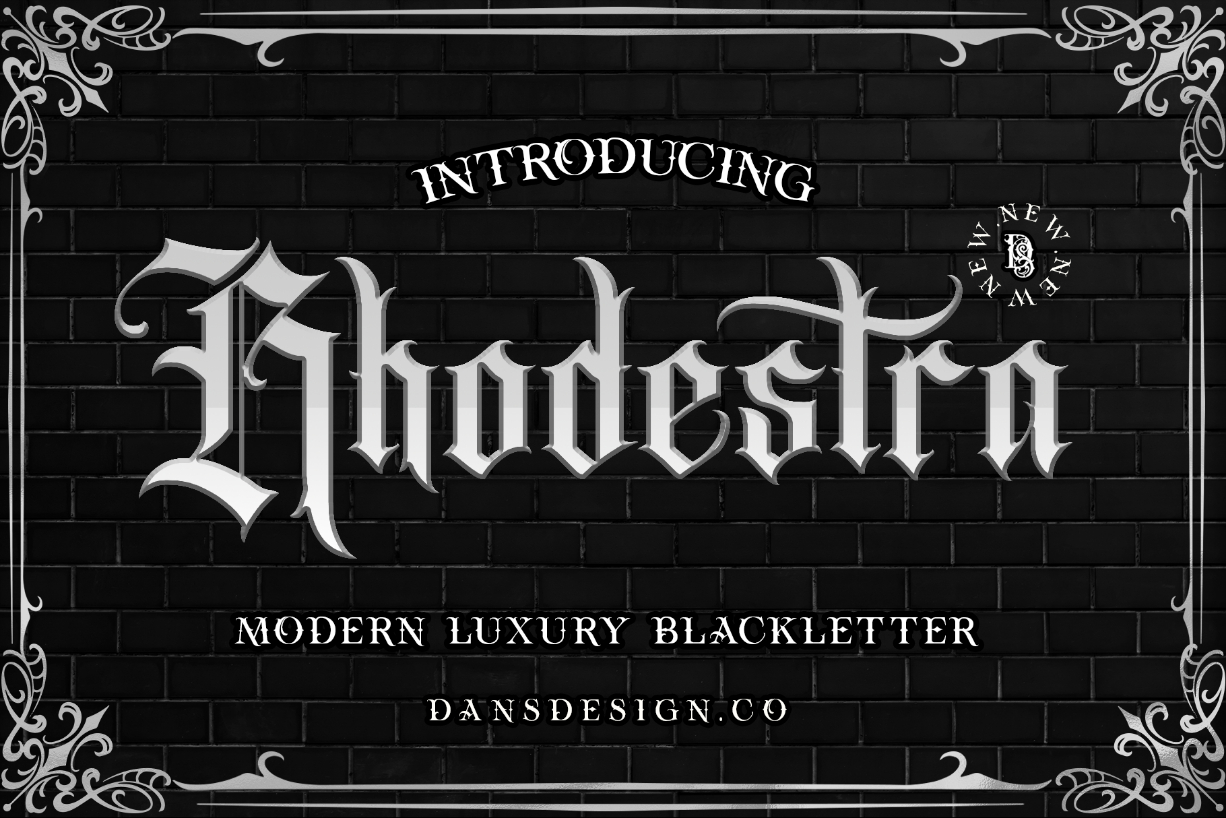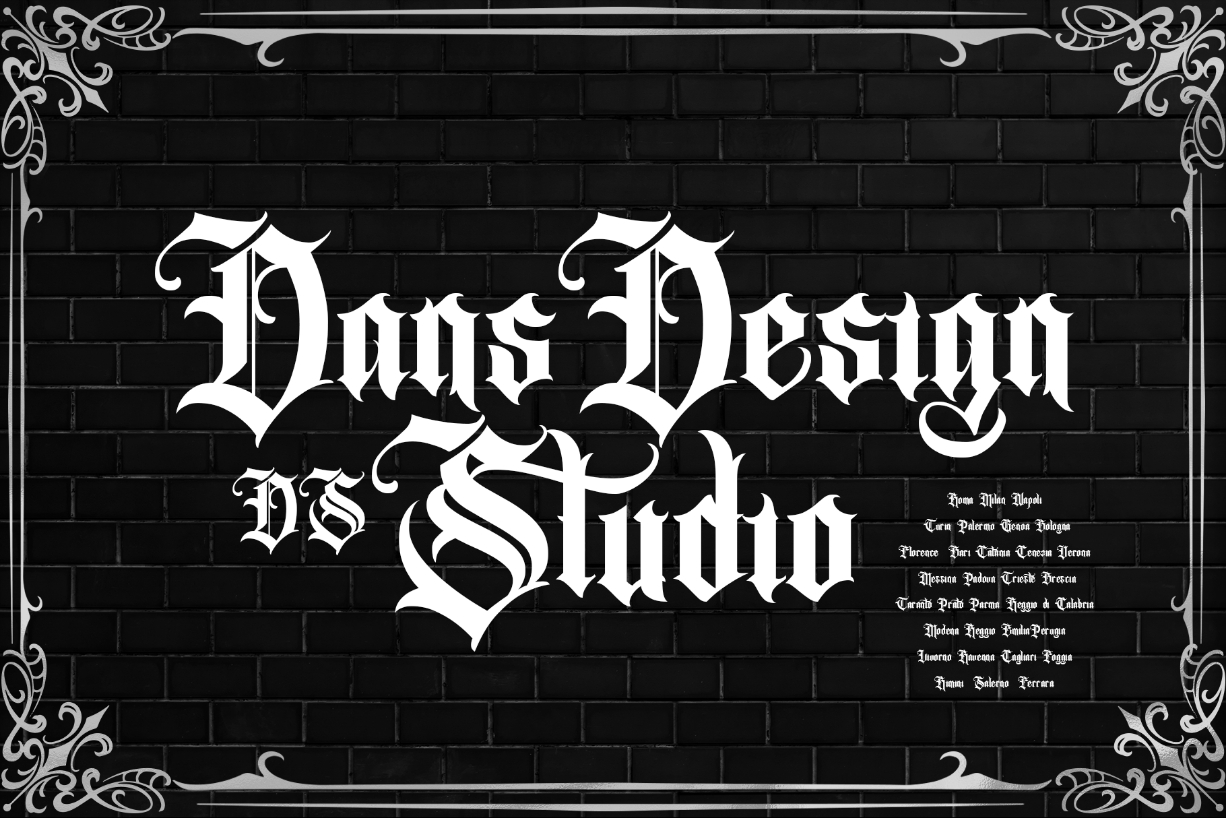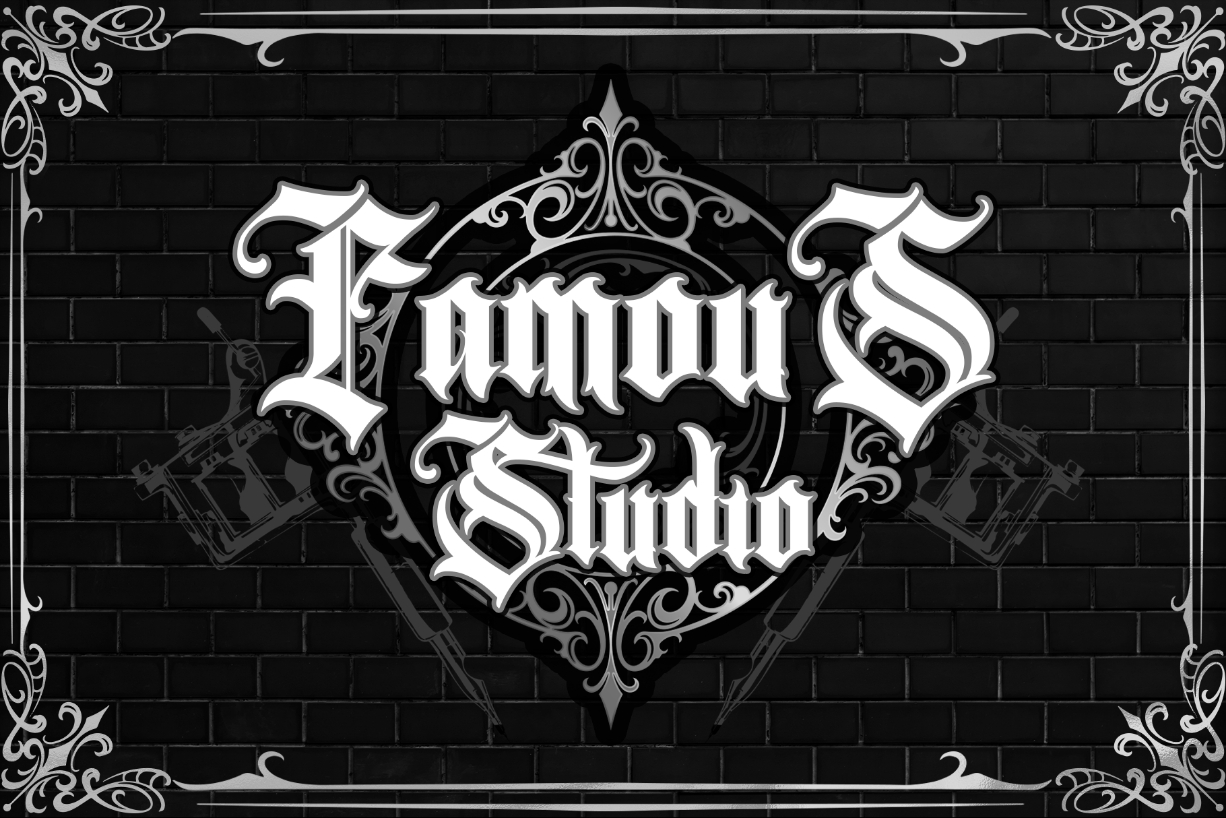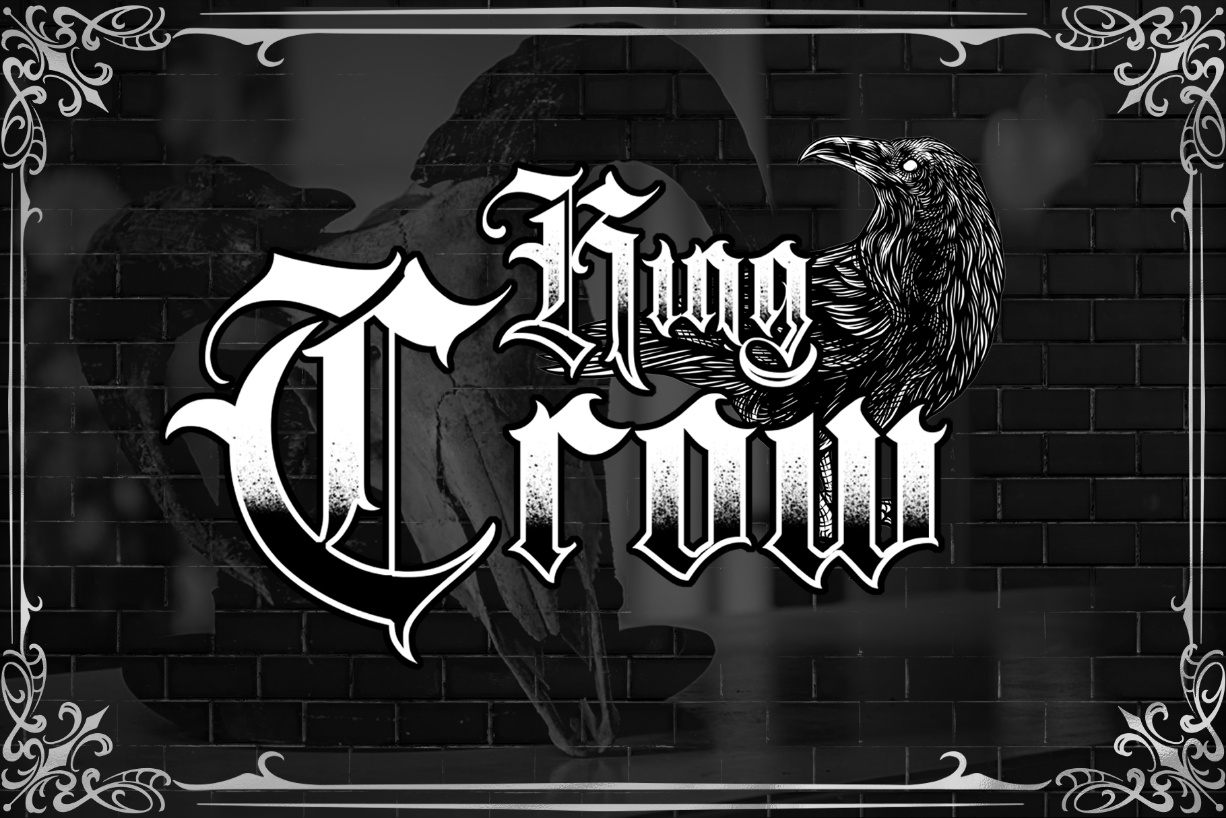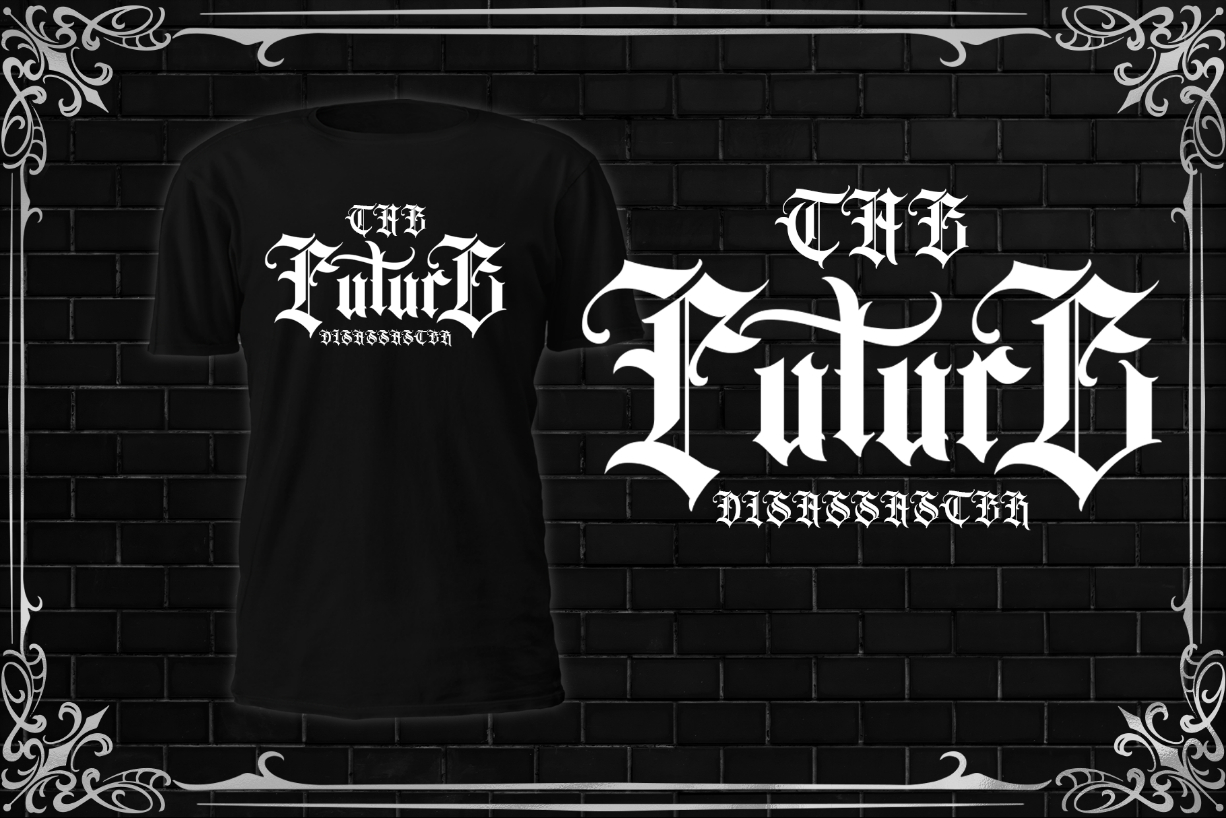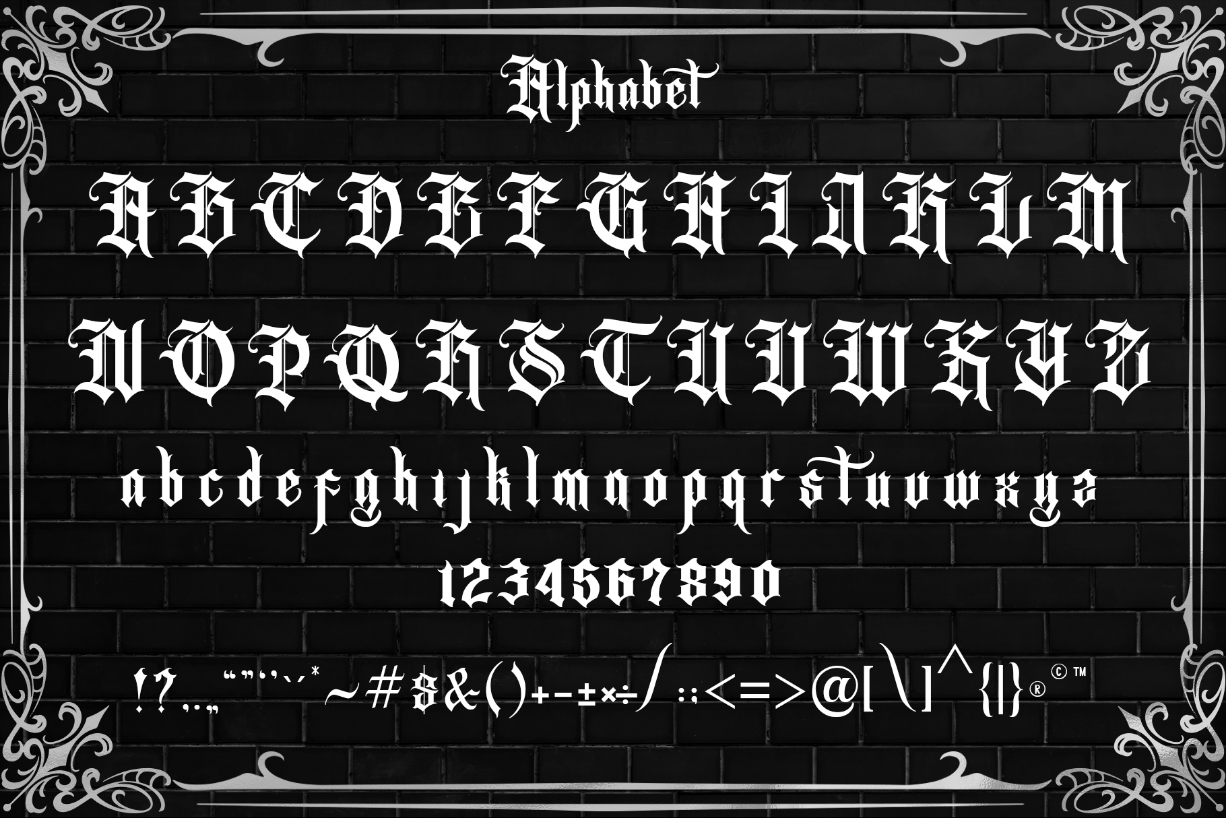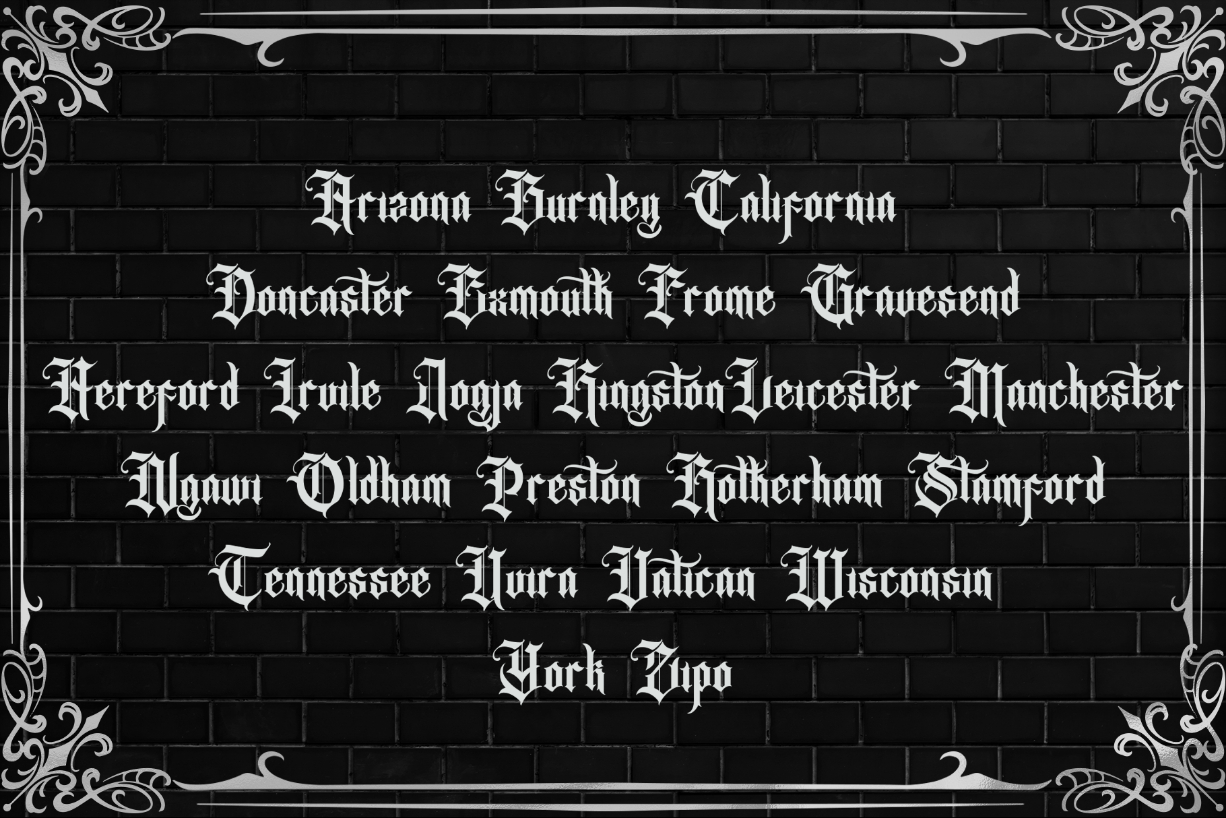
Rhodestra Font
About Rhodestra Font
Rhodestra is an incredibly detailed and elegant blackletter font. This font is imposing and features uniquely shaped letters, and as a result, it will easily match a wide range of creations that require a distinct touch.